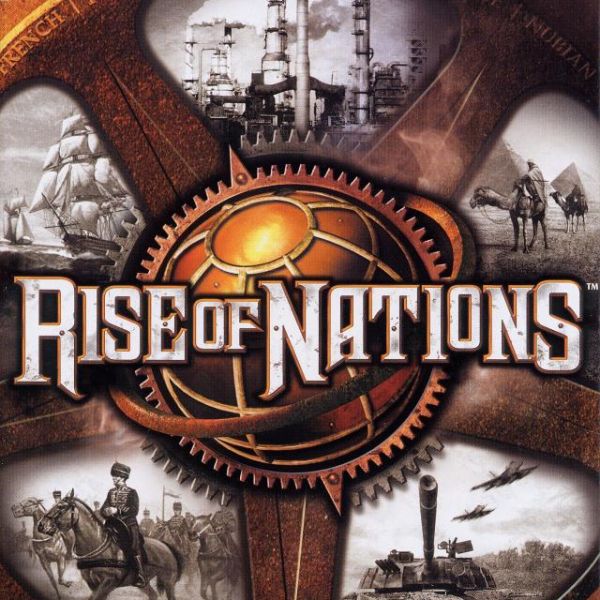
Rise of Nations Font
Fonts in UseRise of Nations is a real-time strategy game that combines elements of turn-based strategy and empire-building. It was developed by Big Huge Games and published by Microsoft Game Studios.
It's likely that Farquharson Regular, an all-caps display typeface inspired by early American woodtype, was used for the game title on the box art. More details about the font are available [here] (https://www.myfonts.com/fonts/quadrat/farquharson/).